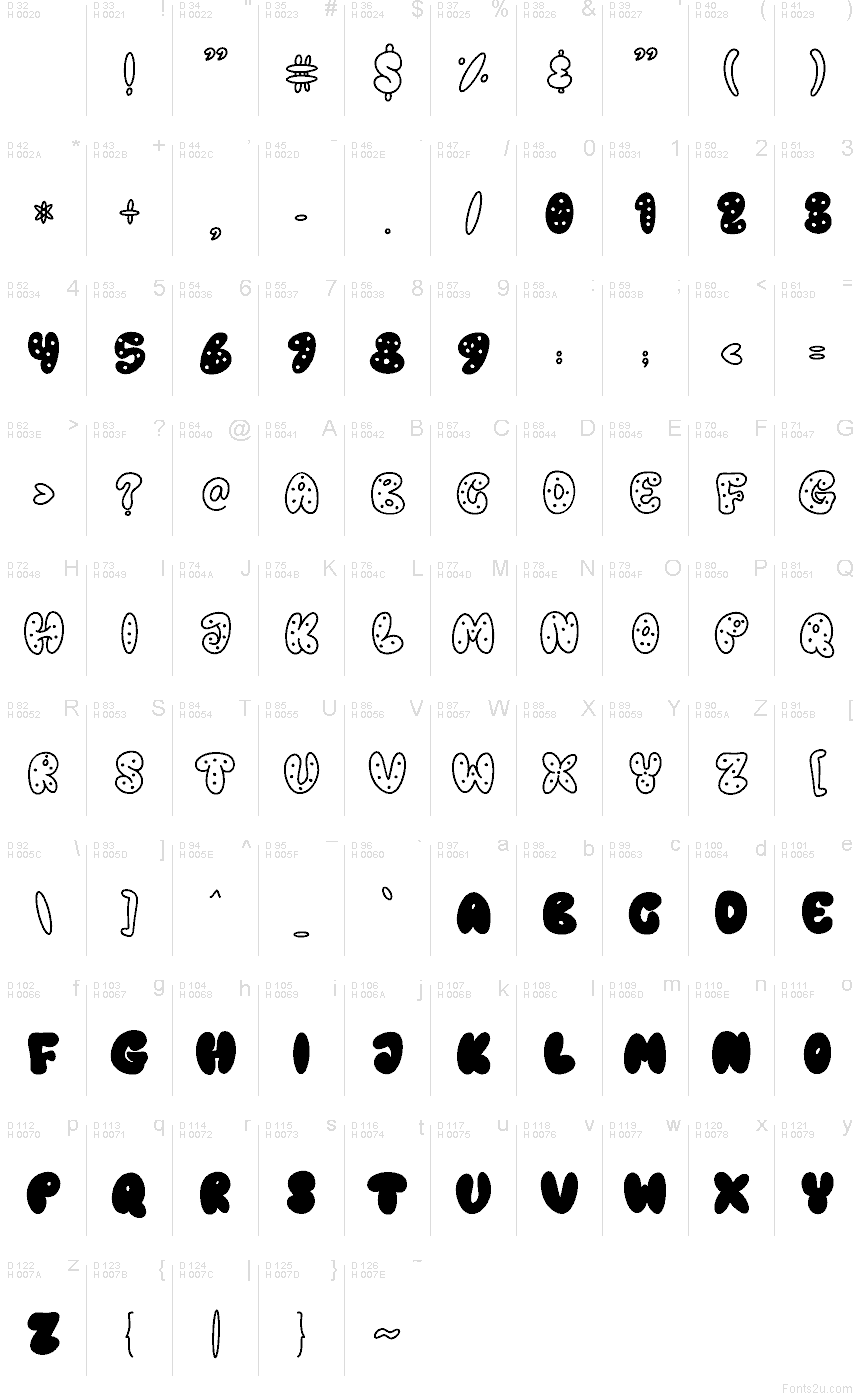
Melted Donuts by Letterafa is a free cartoon caps display font with a gooey, candy-shop feel. The letters look puffed and slightly melted, with chunky rounded shapes and playful cut-in openings that keep the font soft, bouncy, and a little silly.
It suits kids' book covers, snack or dessert packaging, party invitations, YouTube title cards, and short logo work where the free font can lean into its drippy sweetness. Use it for big headlines, monograms, or a single word on a poster - the caps carry enough weight and wobble to do the talking without extra decoration.